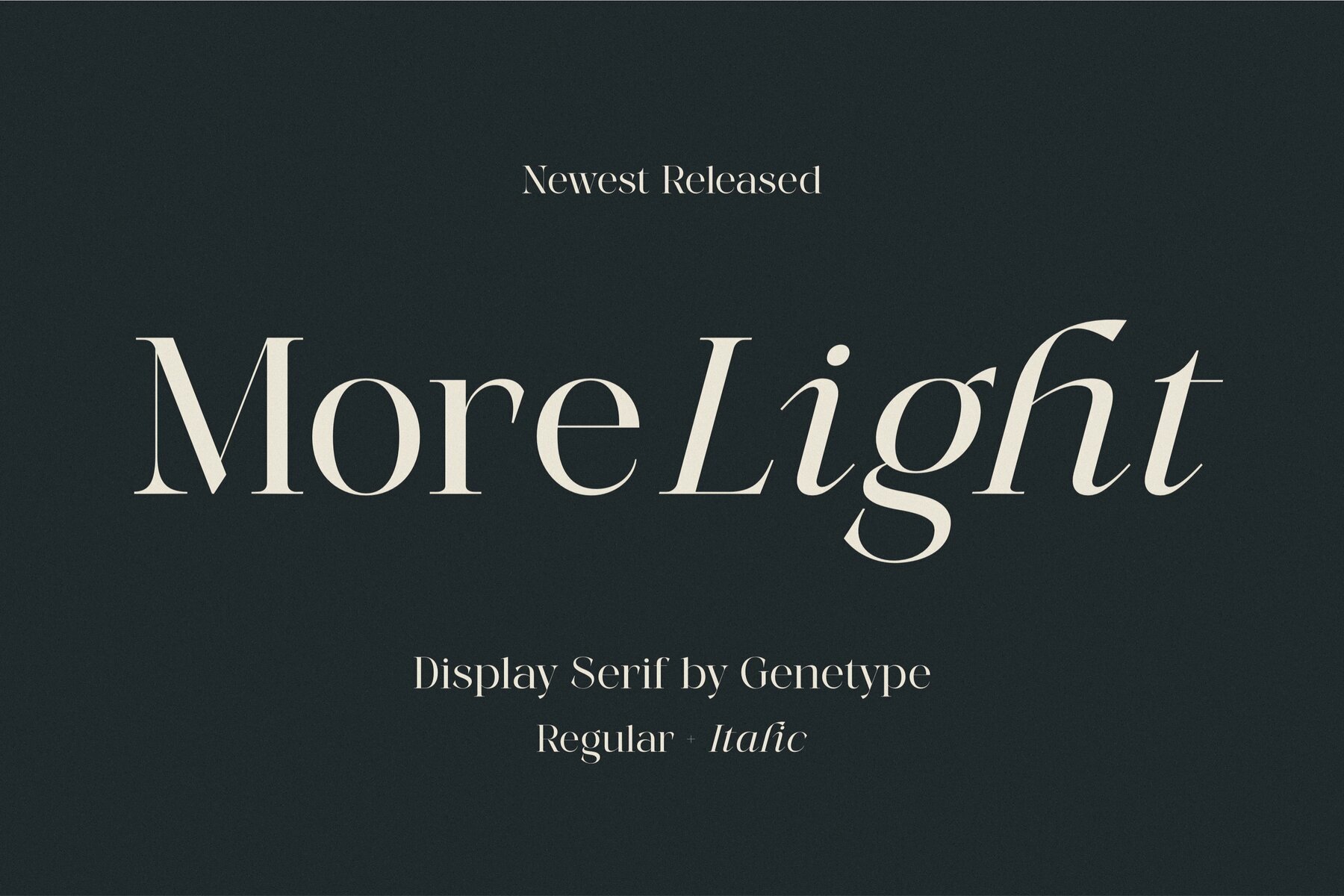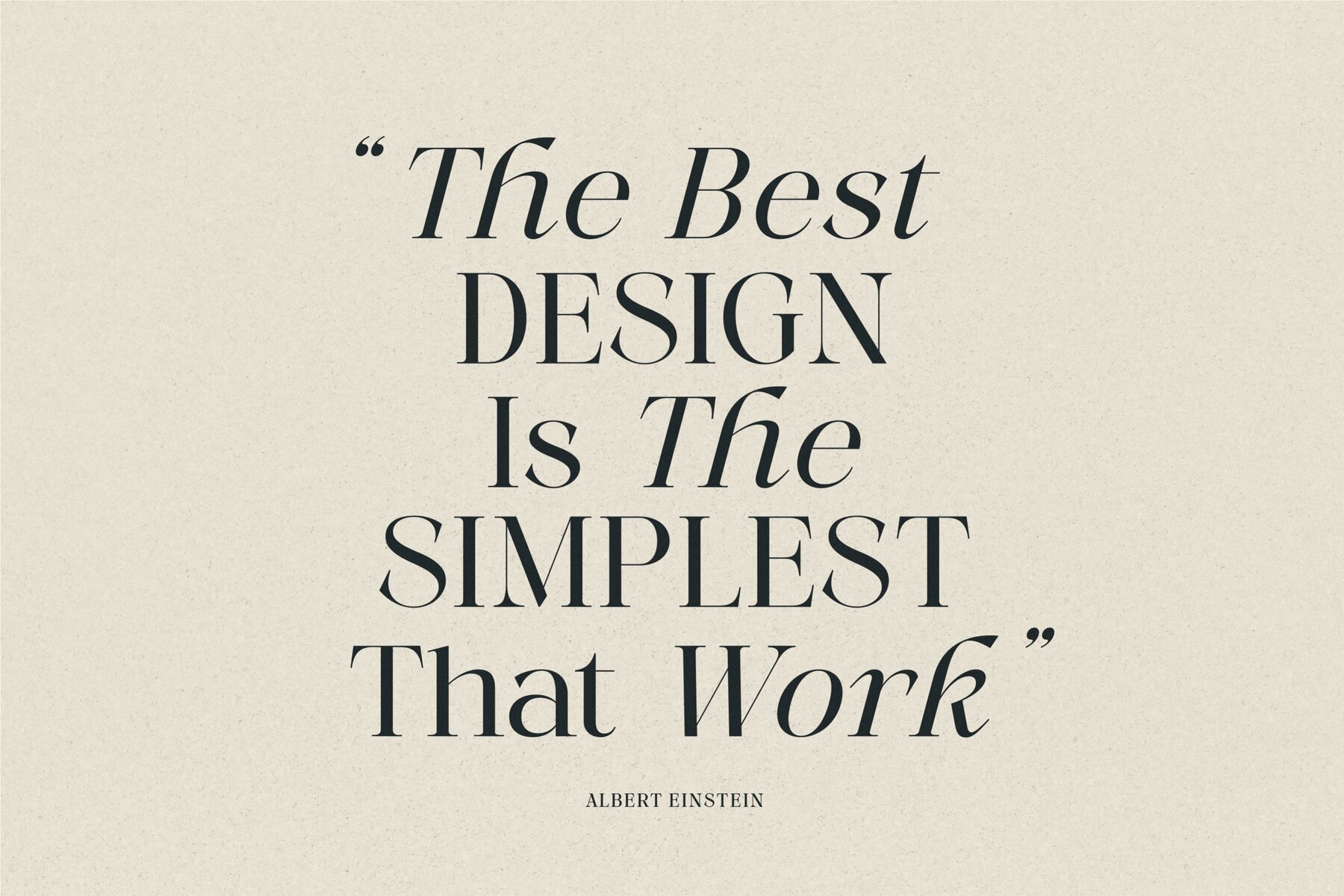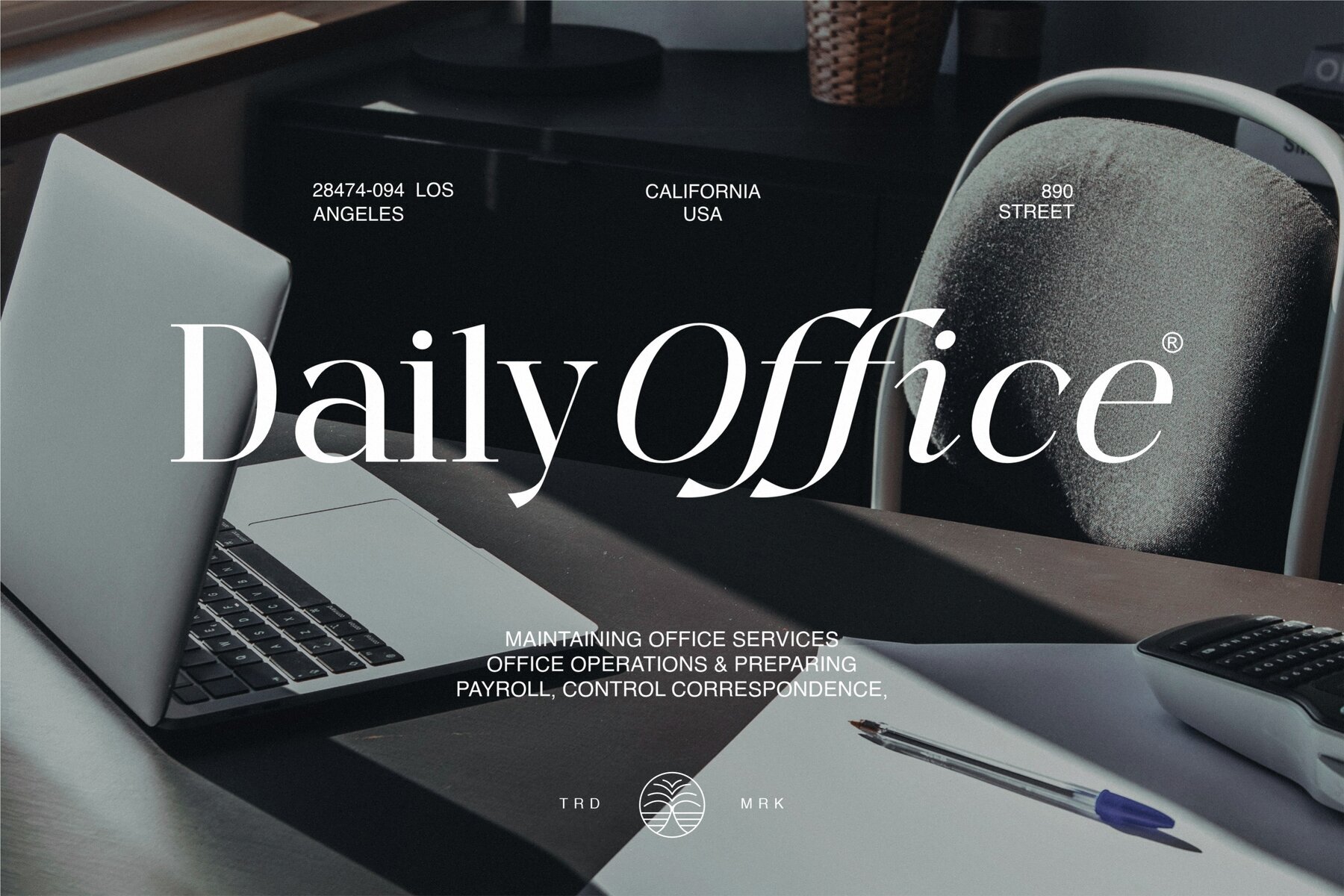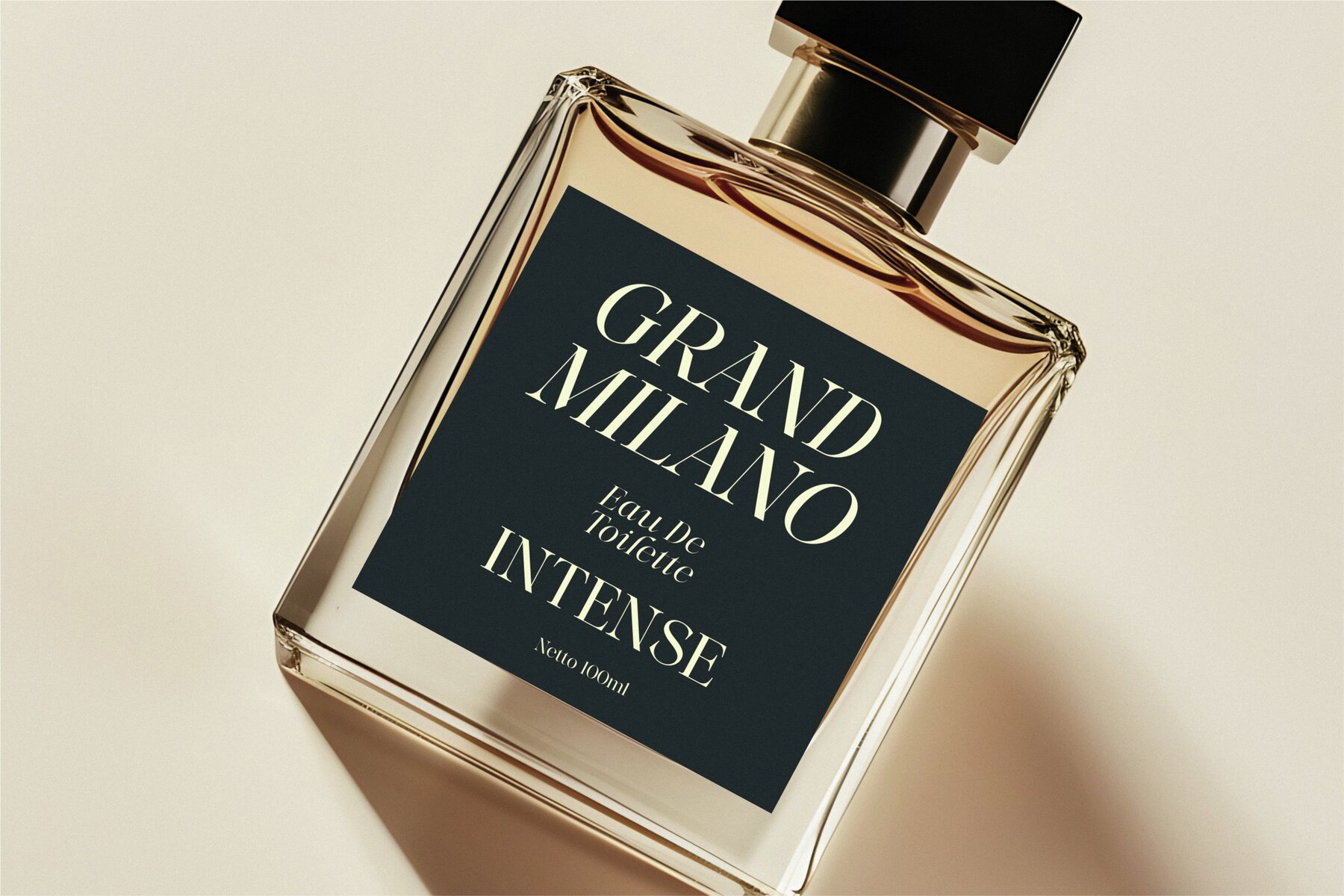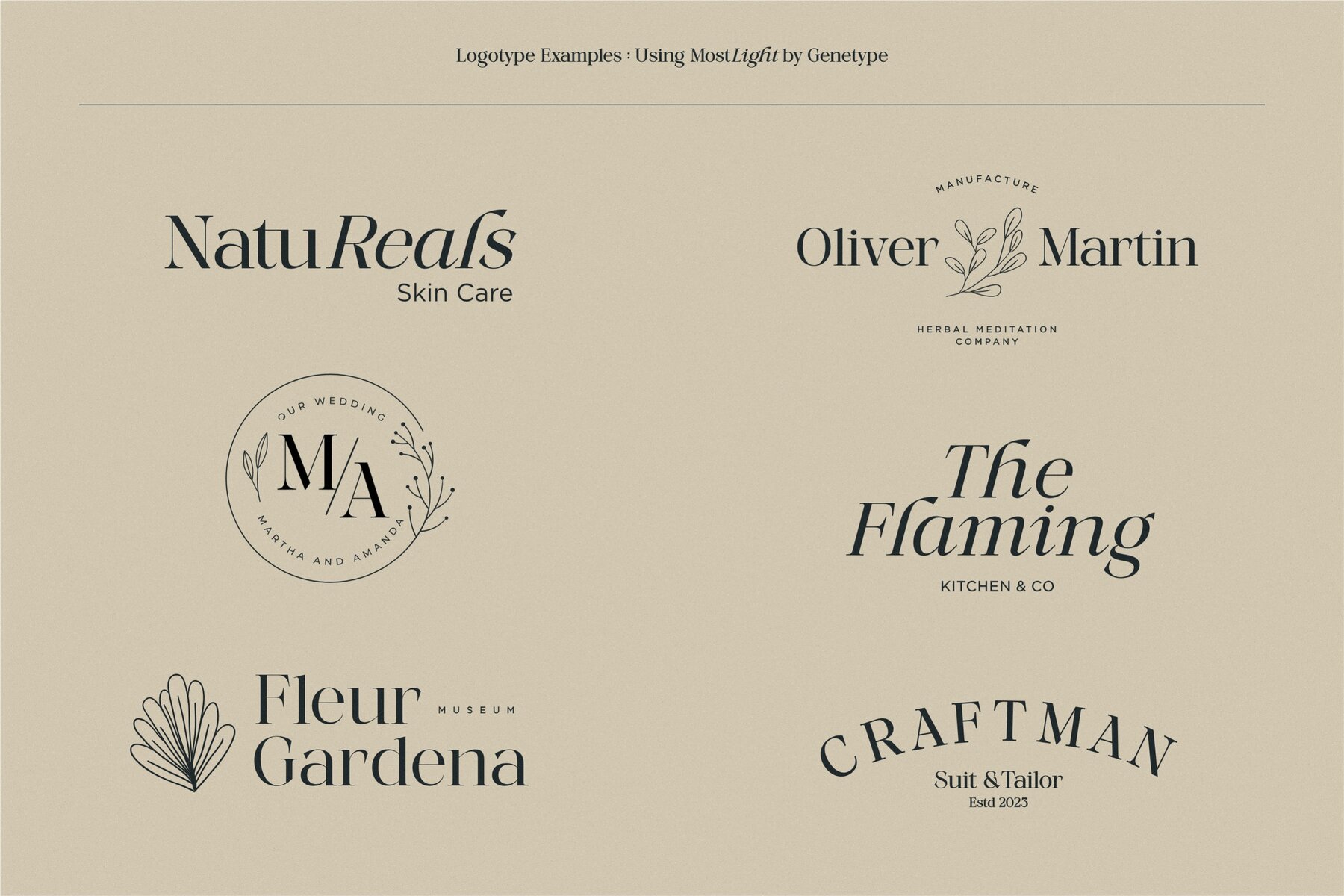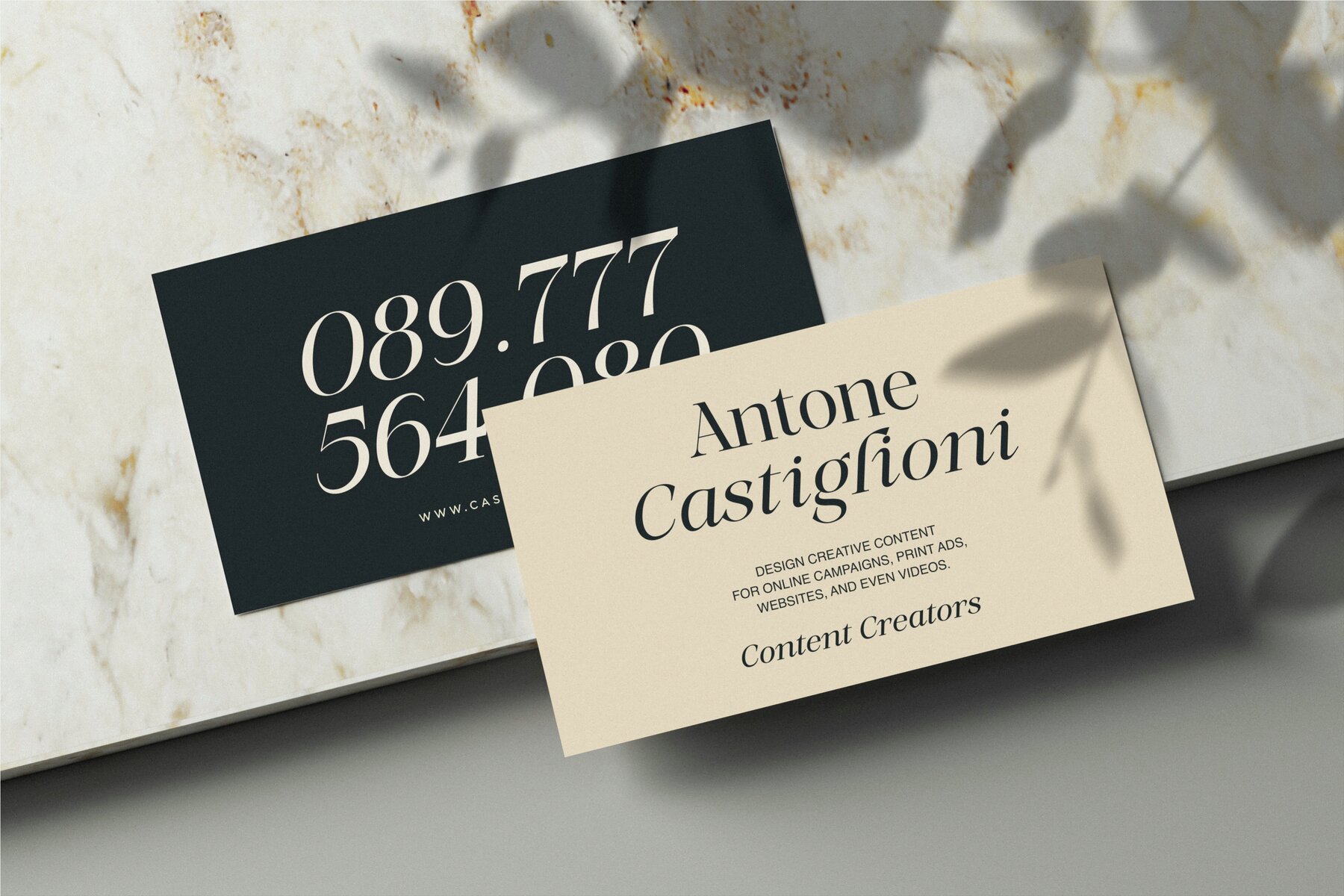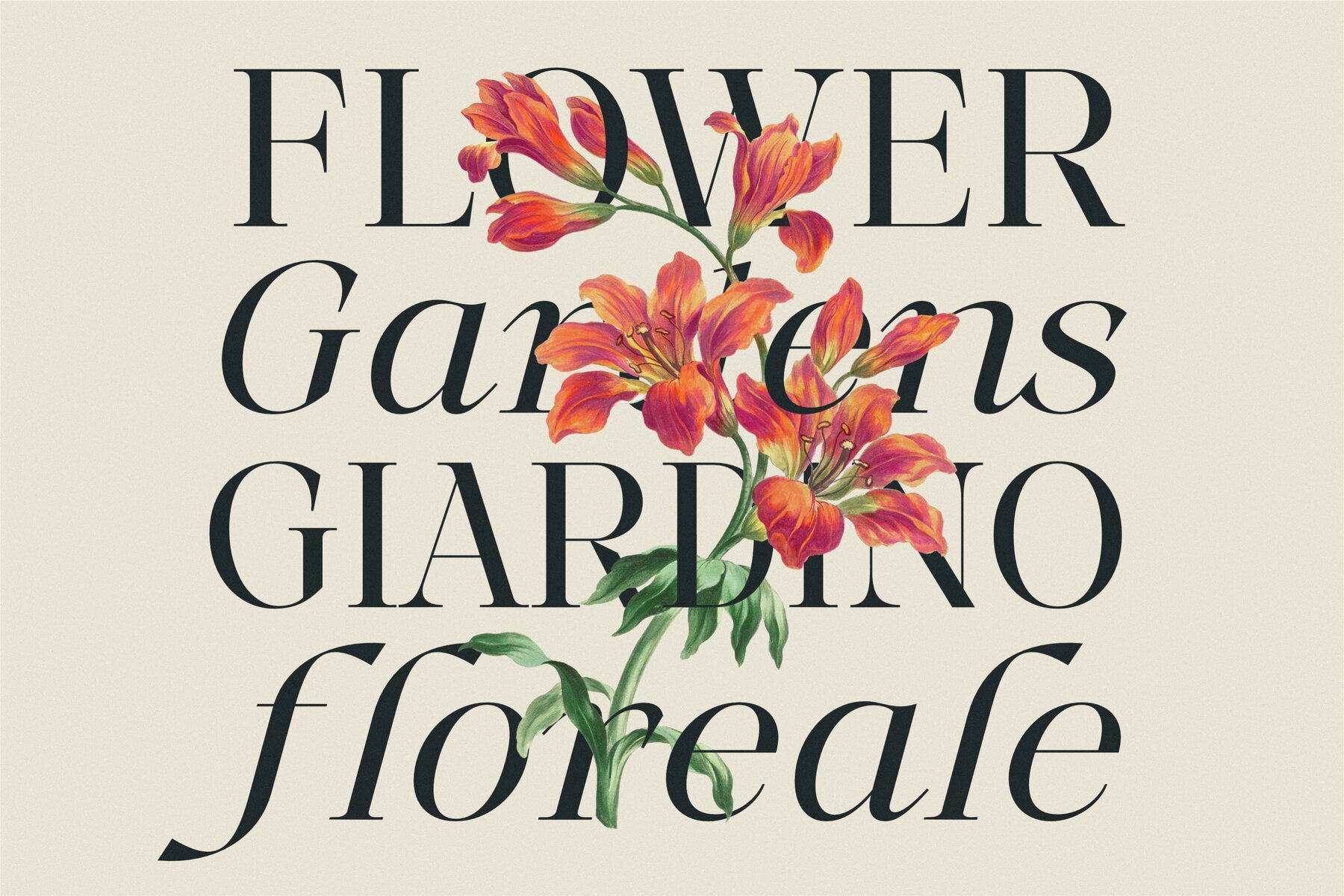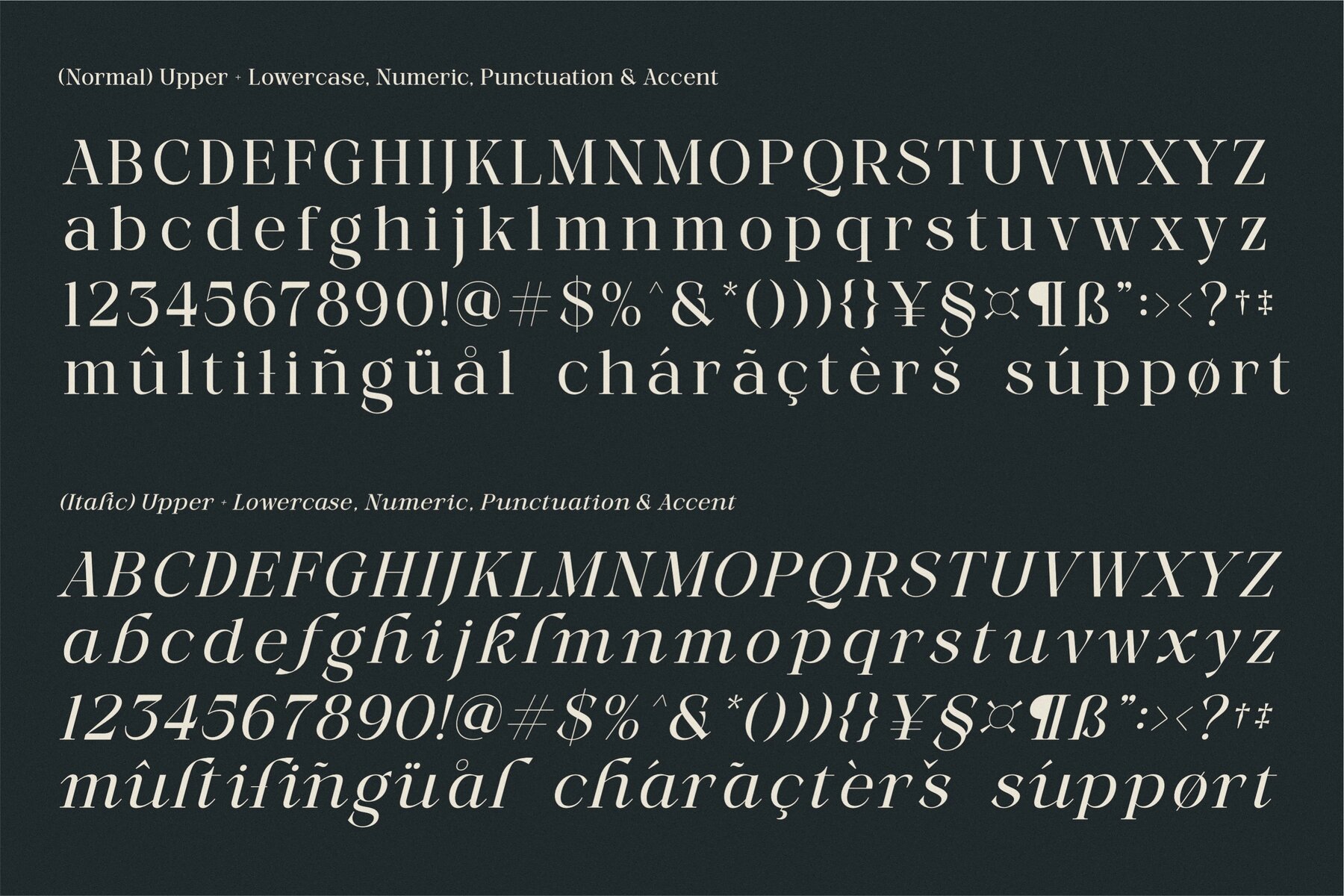
More Light Font
Introducing More Light, a sleek and versatile sans serif typeface designed for modern aesthetics. Its clean lines and balanced proportions make it ideal for a wide range of applications, from branding to editorial design. More Light offers a contemporary look with a touch of sophistication, ensuring readability and visual appeal in every use. Whether for digital or print projects, this font brings clarity and style to your typography.